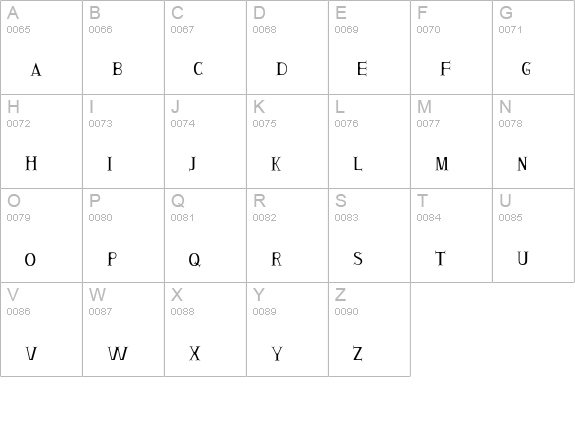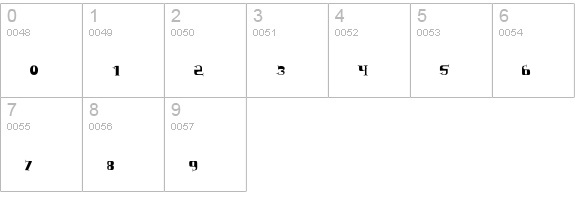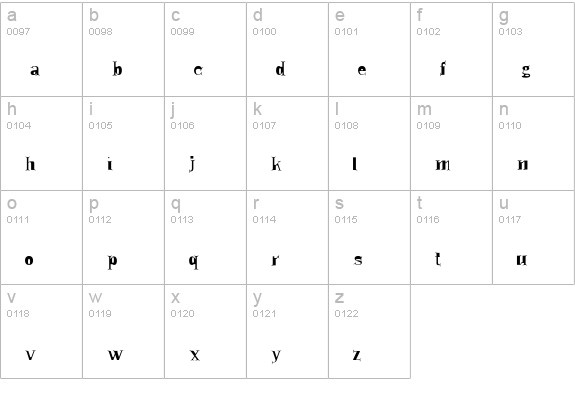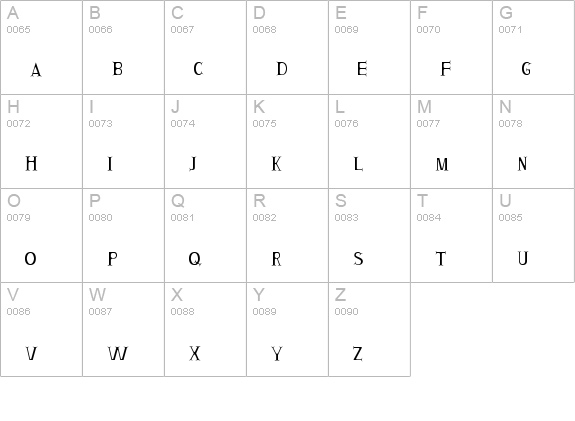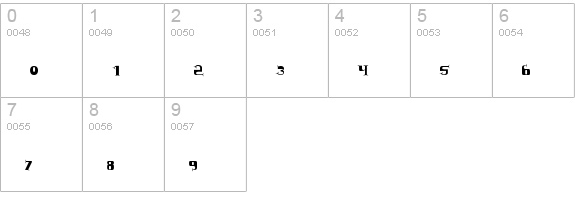
Collonist Font Details
Introducing Collonist font, a striking and elegant typeface designed to make a statement in your creative projects. With its clean lines and modern appeal, Collonist exudes sophistication and versatility, making it perfect for a wide range of design applications. Whether you're working on branding, editorial design, or web projects, this font will elevate your work to the next level. What's more, Collonist font is available for free download exclusively at FontsMarket.com. Now you can easily access this premium font without any cost, allowing you to enhance your designs without breaking the bank. Don't miss out on this opportunity to add a touch of class to your projects with Collonist font - download it today and see the difference it can make!